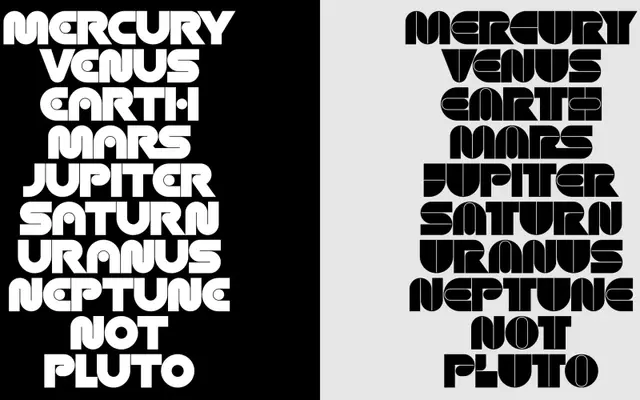
Super
The Designers Foundry · Michael Bagnardi
An all-capitals display pair from BurnType's Michael Bagnardi, channelling 1970s and 80s science fiction aesthetics through ultra-sharp, sleek letterforms.
Super comes in two styles, Eighty and Seventy, both built on a single all-capitals frame with razor-sharp details that reference the era of Sorayama, Frazetta and the NASA worm logotype. Discretionary ligatures for common pairings such as es, mm, rs and ks add typographic texture within the limited glyph set of 218 characters. Latin language support spans a broad range of African and European languages, making it more versatile than its narrow display brief might suggest.
An all-capitals display typeface with ultra-sleek, razor-edged construction explicitly referencing 1970s and 80s sci-fi and futurist aesthetics, placing it firmly in retro display territory.